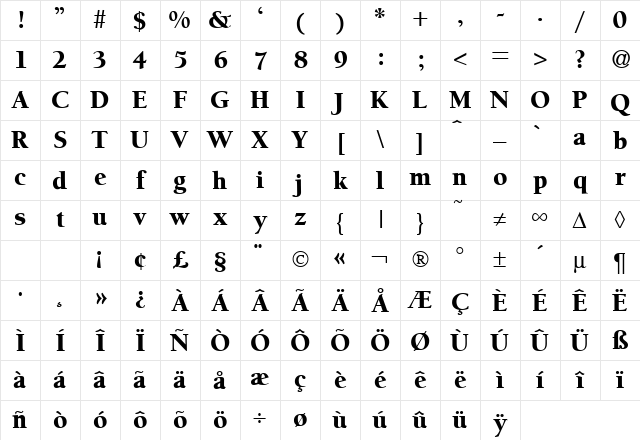
BergmannOldStyleBlack Regular
Design Context for BergmannOldStyleBlack
BergmannOldStyleBlack carries the refined structure of traditional serif typography, with bracketed terminals and considered proportions that communicate credibility and craft.
Pro Tip: Use BergmannOldStyleBlack for editorial body copy and considered headline work. Pair with a neutral sans for UI elements or captions to create a classic hierarchy.